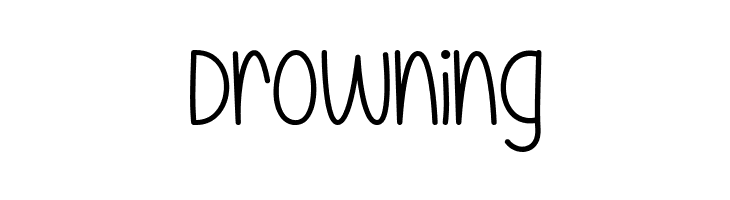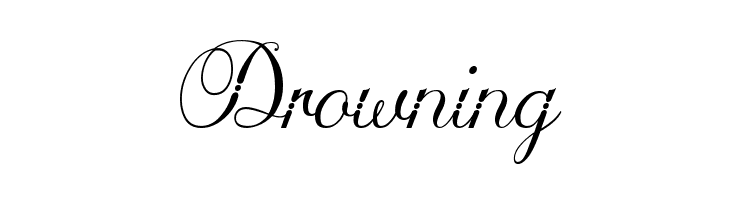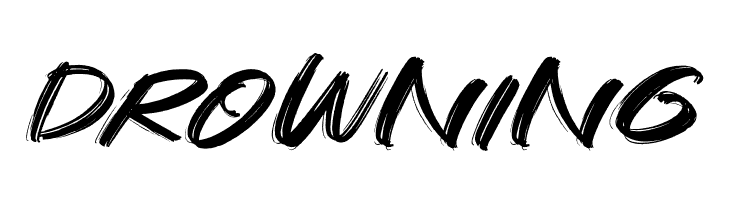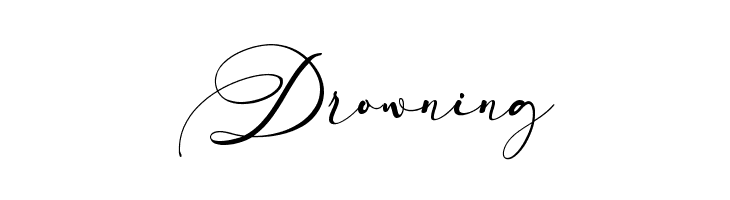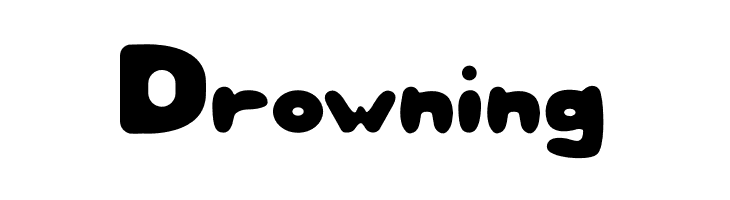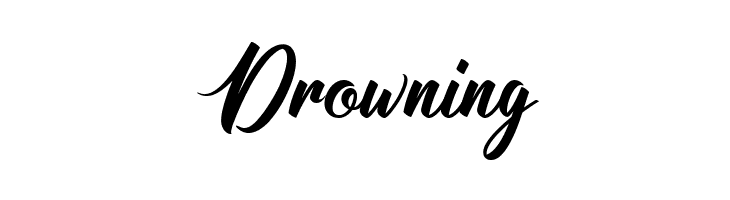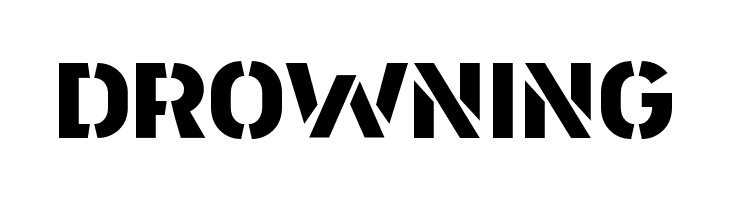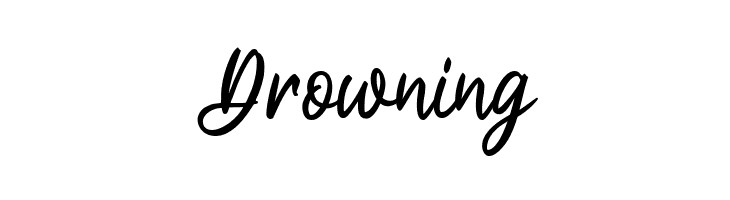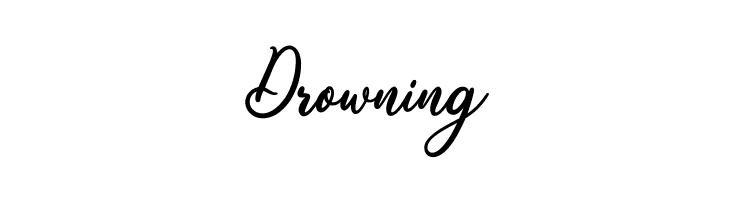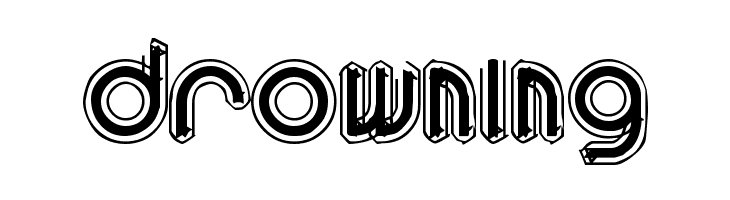
• Ardillah Kafi
A bold, gothic-inspired font with sharp, angular edges and a strong presence.
• Ardillah Kafi
A bold blackletter font with sharp, angular lines and a dramatic presence.
• Ardinia Demo
A flowing, cursive script font with elegant, interconnected strokes.
• Ardneran
An artistic and whimsical font with elongated, flowing letterforms.
• Ardolint Tijza
Casual handwritten script font.
• Ardot
Hand-drawn, sketch-style arrows and symbols with a casual, informal look.
• Ardour 3D GM
A bold, 3D geometric font with a striking shadow effect.
• Ardour GM
A bold, modern font with a geometric and slightly condensed style.
• Ardour Outline
• Ardour Waved
A dynamic, waved decorative font with a unique flowing texture.
• Ardsttandsille Personal Use Onl
A bold, flowing script font with high contrast and elegant curves.
• Are you awake Neo?
A distressed, hand-drawn font with a rugged, textured appearance.
• Are You Freakin Serious
A playful, hand-drawn font with rounded, elongated characters.
• Are You Freakin' Serious
A playful, rounded, handwritten-style font with smooth curves.
• Are You Freakin' Serious
A playful, rounded handwritten font with smooth, consistent strokes.
• Are You Hung Up
A bold, textured font with a hand-drawn, artistic style.
• Are You Jimmy Carl Black
A bold, hand-painted style font with thick, uneven strokes.
• Are You Kitten Me
A playful, bold font with rounded, bubble-like characters.
• Are You Okay
A bold and dynamic brush script font with sweeping strokes.
• Are You Okay
A bold, brush script font with dynamic, hand-painted strokes.
• AREA KILOMETER 50
A bold, modern sans-serif font with clean lines and strong legibility.
• AREA KILOMETER 50